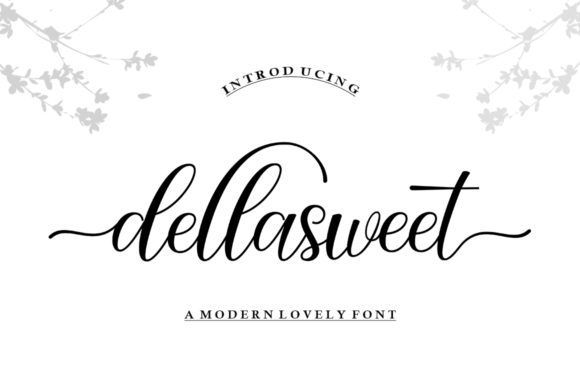
Dive into the world of Dellasweet, a script font family that exudes elegance and charm. This captivating font, meticulously crafted by studiorhd, is a perfect choice for conjuring a romantic ambiance in your creative endeavors.
Immerse yourself in the graceful curves and delicate swashes of Dellasweet, a font that dances across your designs, capturing the essence of handwritten elegance. It's an ideal companion for wedding invitations, imbuing them with a touch of timeless romance. Send heartfelt gratitude with Dellasweet, adorning thank you cards with its graceful characters.
With Dellasweet as your artistic partner, unleash your creativity and add a touch of whimsy to quotes, greeting cards, and logos. Design business cards that exude professionalism with a touch of sophistication. Dellasweet beautifully complements any project that calls for a handwritten touch, bringing a charming and elegant allure to your words. Embrace the art of handwritten elegance with Dellasweet, the font that captivates hearts.